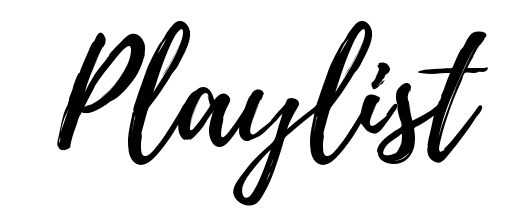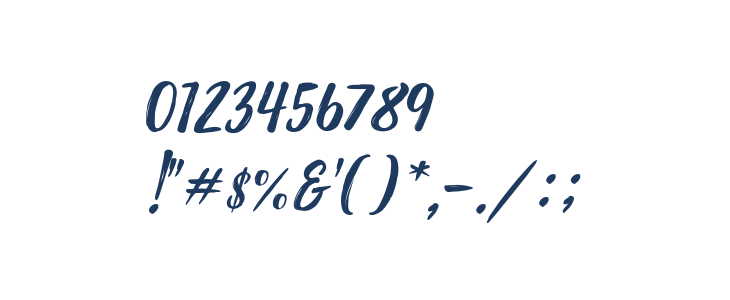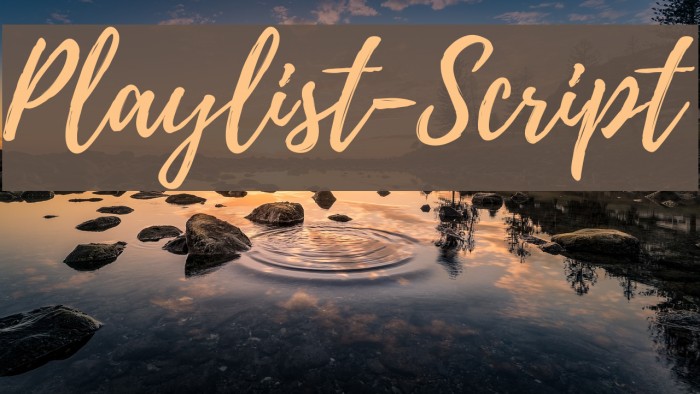
Playlist Script Font Download Free. Here is another interesting script typeface called playlist script font that was designed by artimasa. Jun 24, 2017 by free fonts.
This font has 169 characters including uppercase, lowercase, glyphs, etc. Search logo script modern wedding handwriting display calligraphy bold brush all. Playlist free font contains 3 styles:
This Font Belongs To The Script Handwritten Fonts Family.
This font lies in the script typeface category. Playlist free font can be used in any purposes; Script, caps, and ornament, which you could combine to create a beautiful designs.
It Is Suitable For Wing Invitation, Greeting Card, Illustration, Quotes, Poster, […]
Script, caps, and ornament, which you can combine to create a beautiful designs. Script, caps, and ornament, which you can combine to create a beautiful designs. Playlist script font free download.